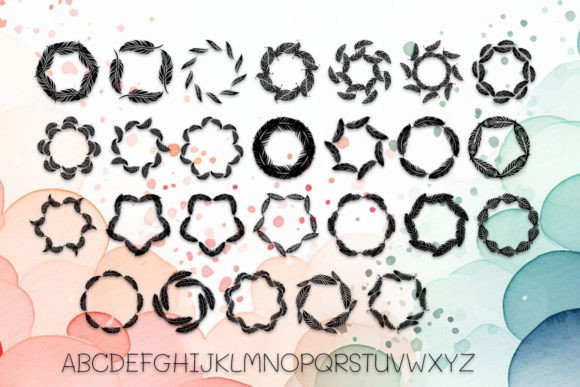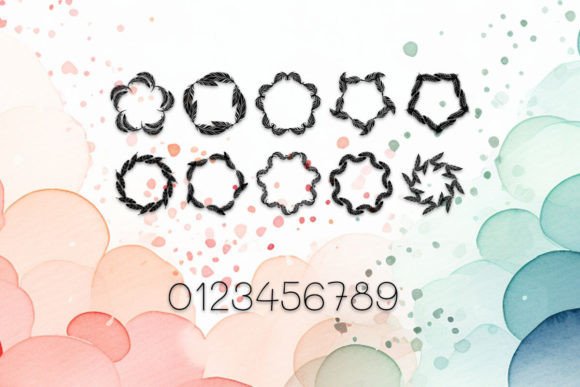
Introduction to Feather Badge Font
Introducing Feather Badge Fonts, a captivating collection featuring uppercase letters from A to Z and numbers 0 to 9, creatively crafted with an array of feather styles.
This diverse font set brings a unique blend of elegance and creativity, perfect for logos, badges, or any project requiring a touch of sophistication Elevate your designs with this exquisite fusion of feathers and typography.
Key Features of Feather Badge Font
Why Choose Feather Badge Font?
Feather Badge Font offers exceptional quality and versatility, making it a valuable addition to your design toolkit. Whether you’re creating for personal projects or commercial use, Feather Badge Font delivers professional results.